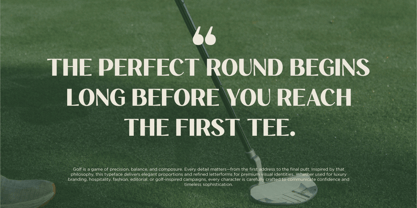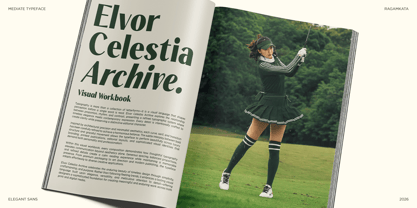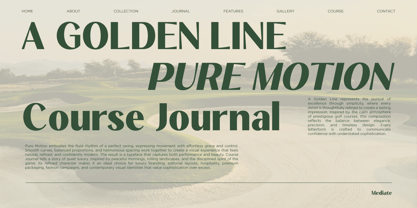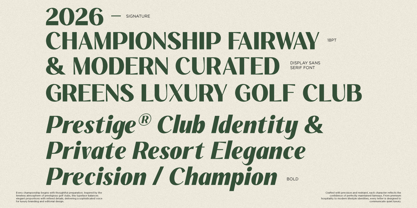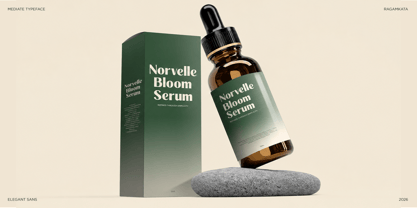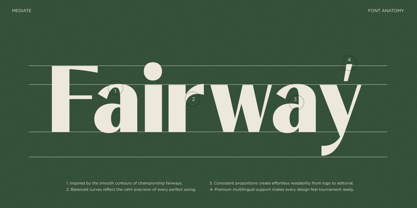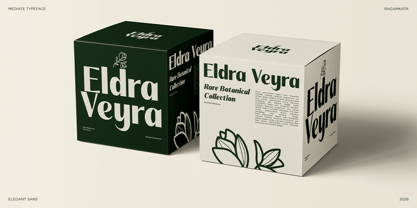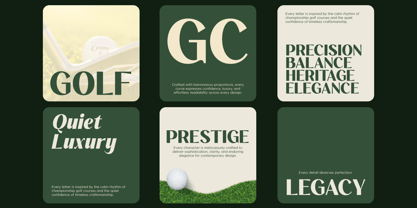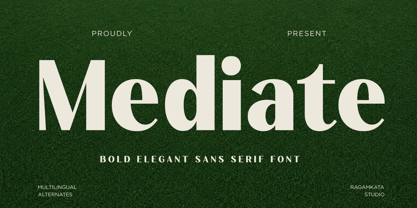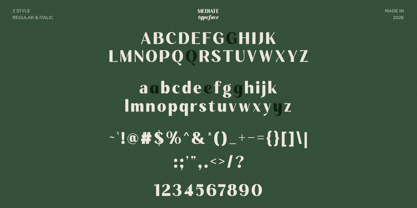
Mediate
Mediate is a refined luxury sans serif font designed for premium branding, modern editorials, and sophisticated visual identities. Featuring clean geometric forms, balanced proportions, and elegant details, it delivers a timeless aesthetic that feels both contemporary and prestigious.
Ideal for luxury branding, fashion campaigns, golf club identities, resort promotions, magazines, packaging, cosmetic brands, hospitality, advertising, logos, websites, and high-end marketing materials. Mediate combines excellent readability with a distinctive modern character, making it a versatile choice for both print and digital design.
• Regular and True Italic Style
• Stylistic Alternates
• Uppercase and Lowercase
• Number, Symbol, and Punctuation
• Multilingual Support